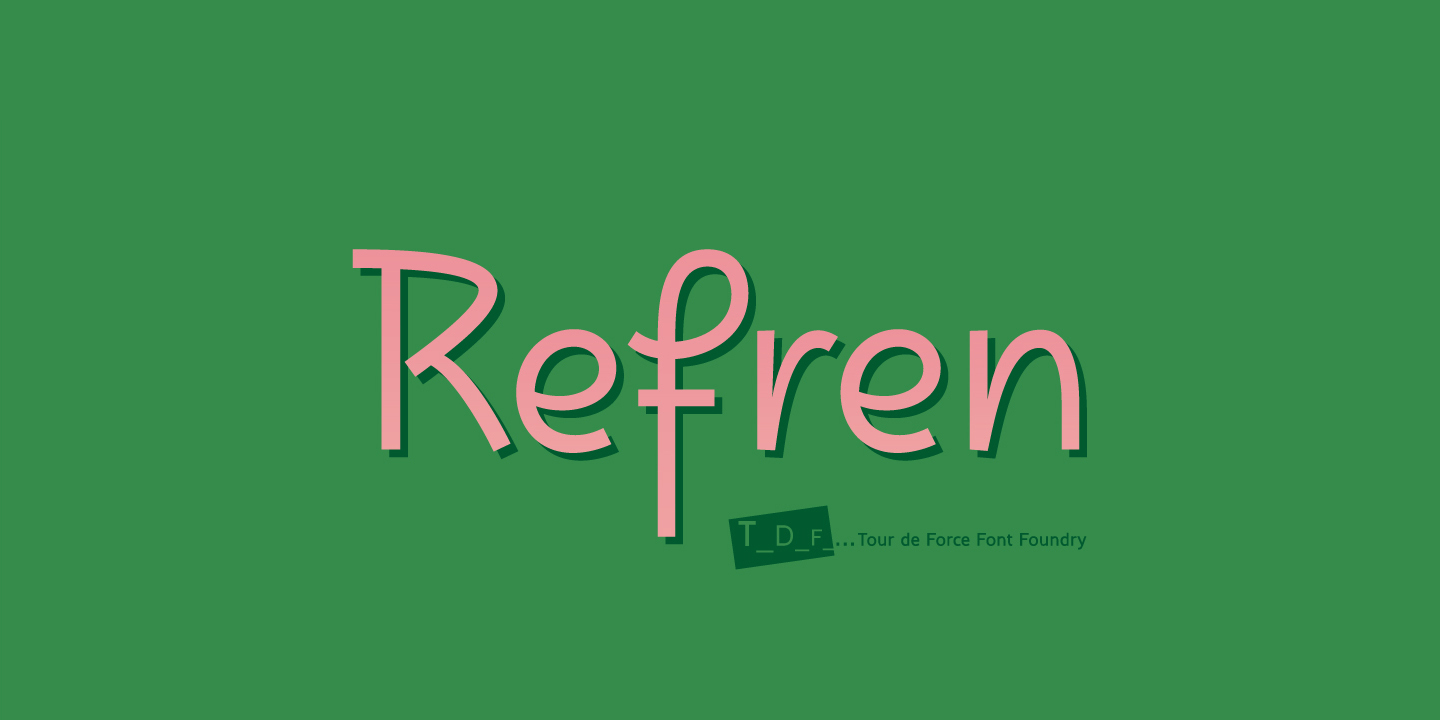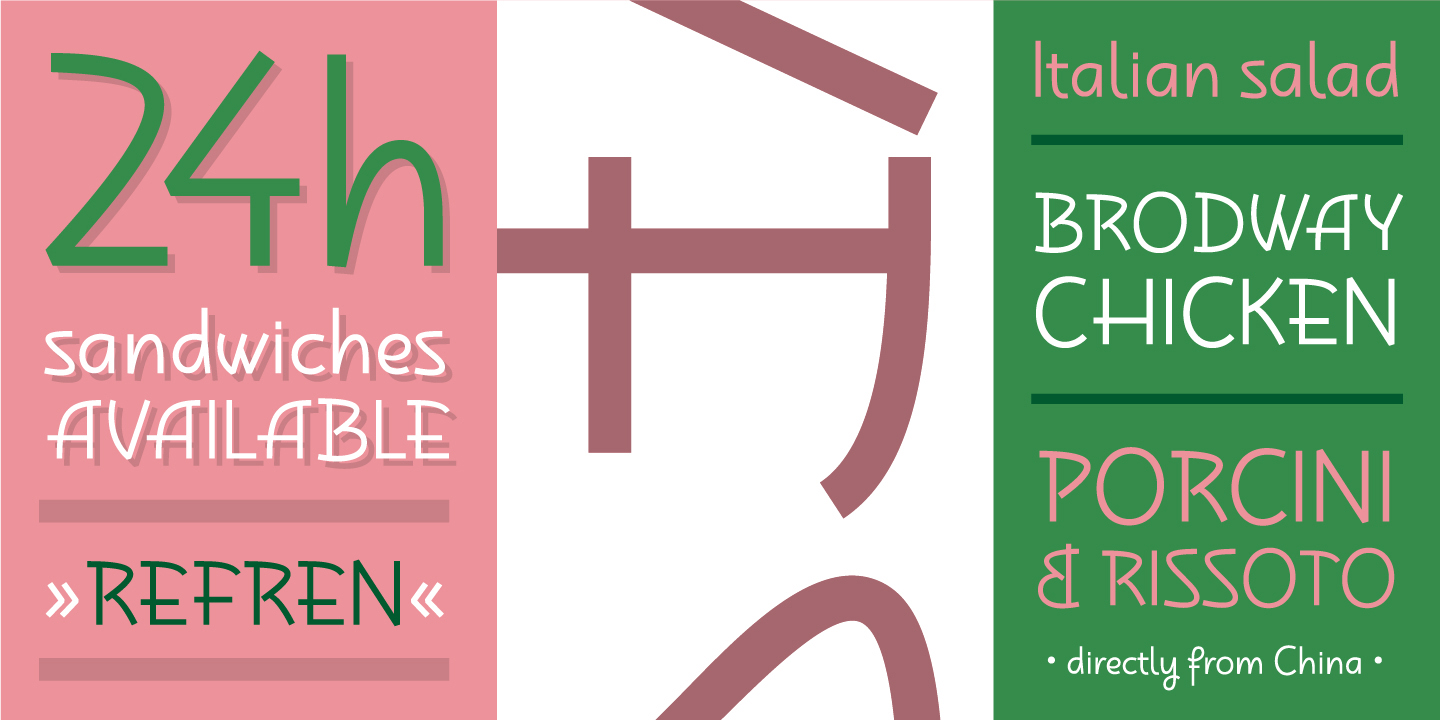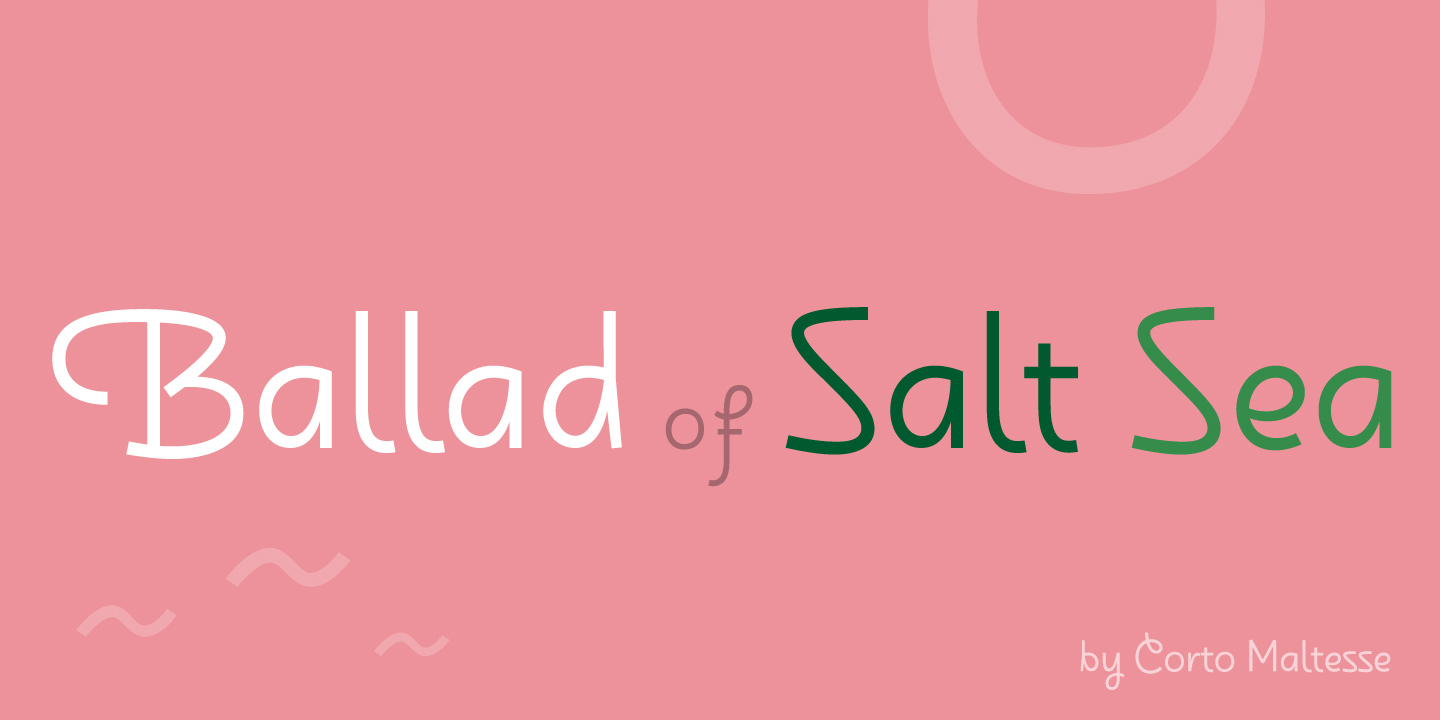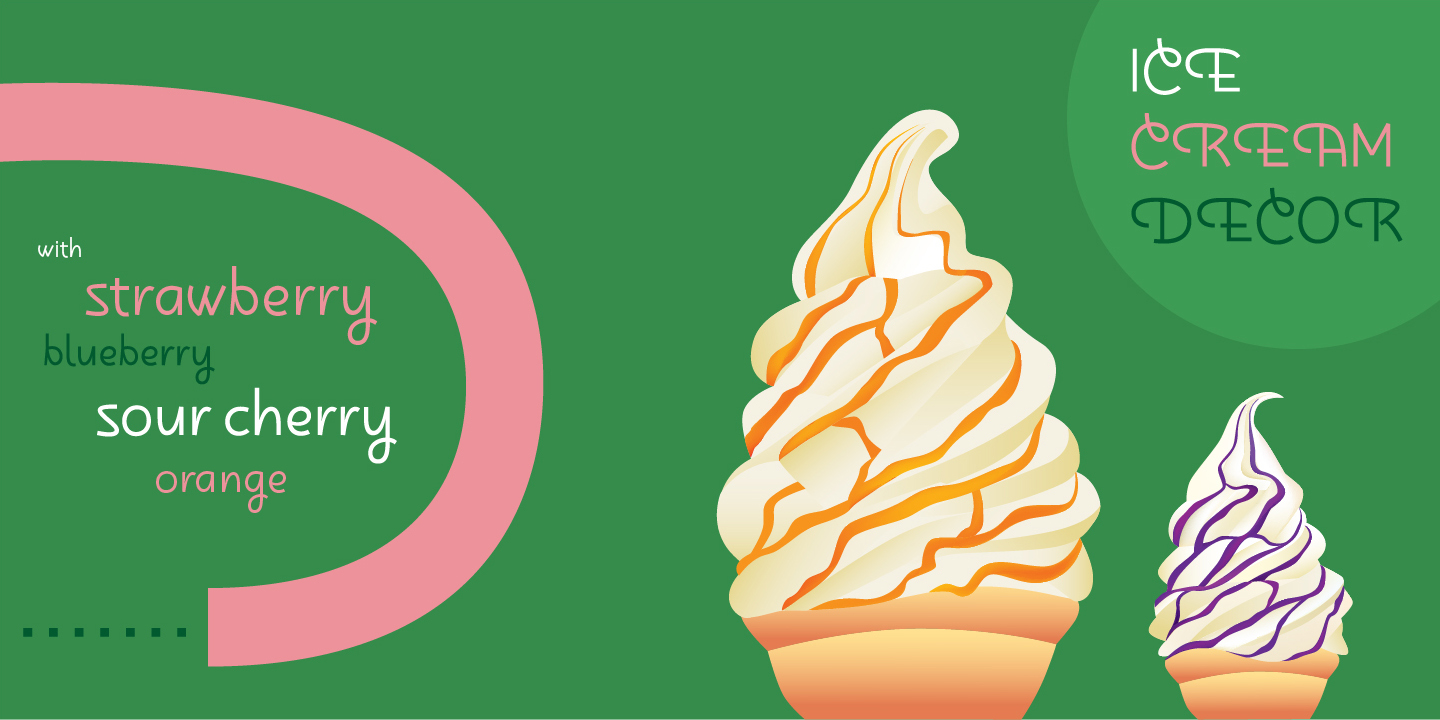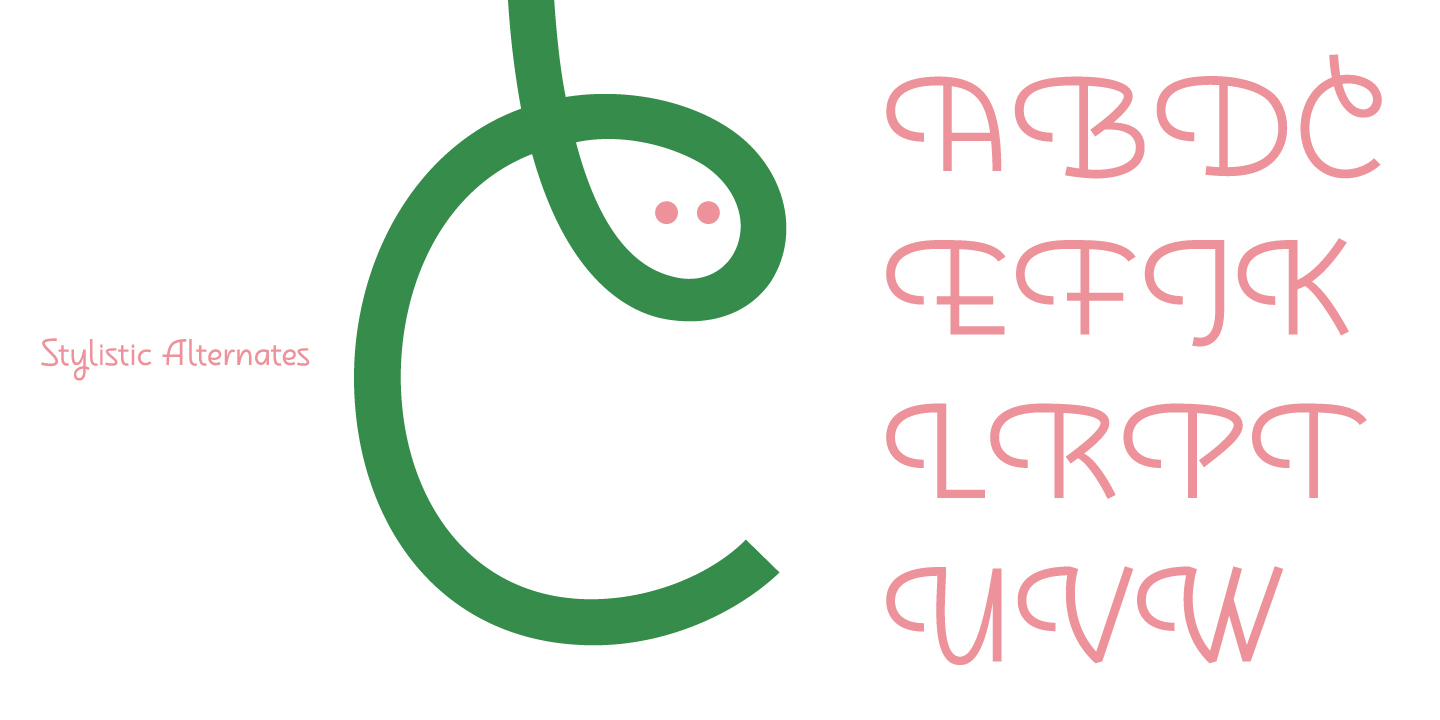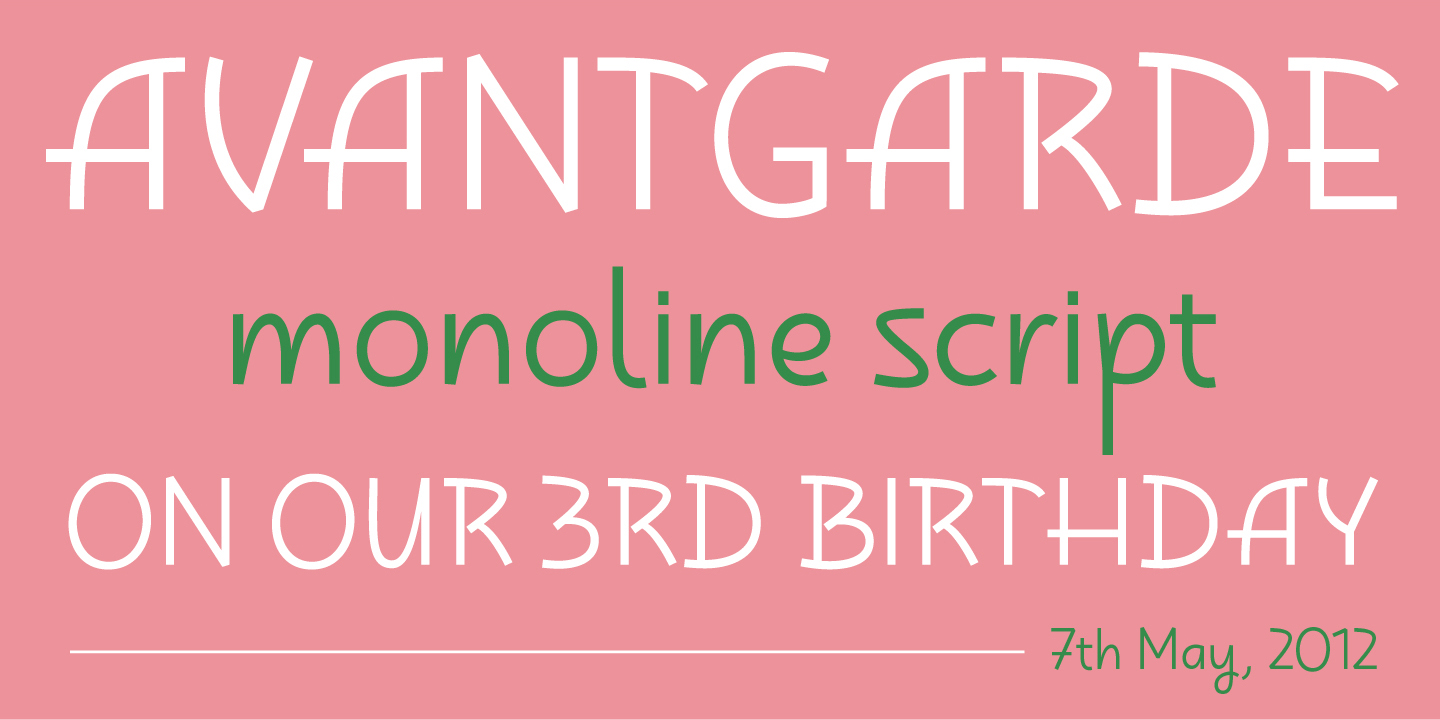
Catchy monoline script inspired by hand made products, from picky tasty food, soaps, chocolates, candies to ice creams, textile products and wedding invitations.
Catchy monoline script inspired by hand made products, from picky tasty food, soaps, chocolates, candies to ice creams, textile products and wedding invitations. Refren comes as our 25th font family, on 7th May, on our 3rd birthday.